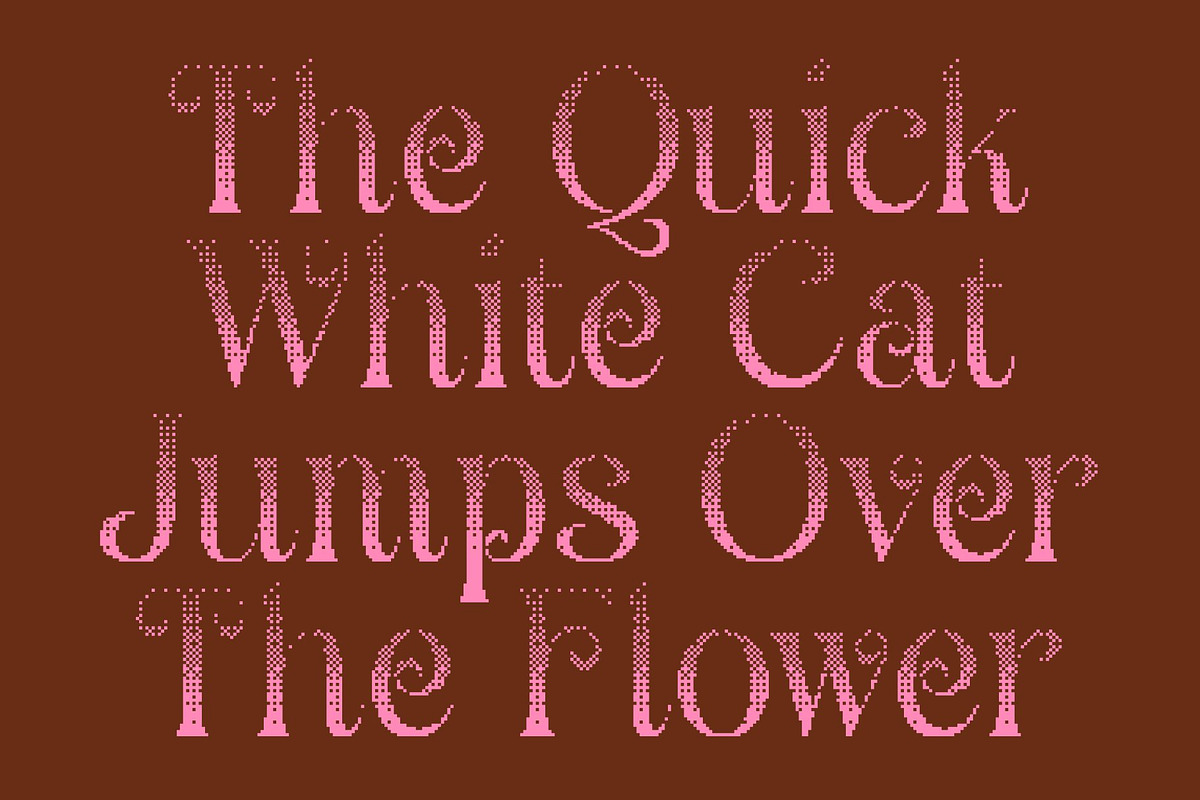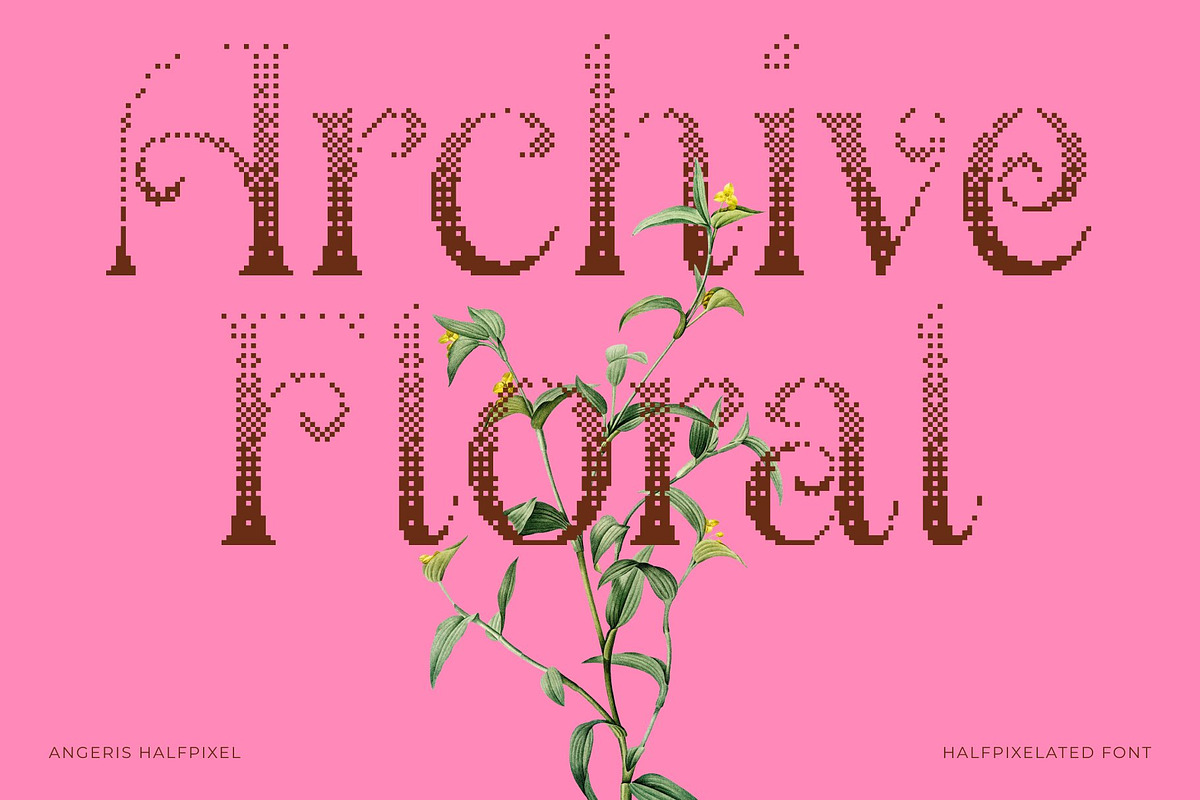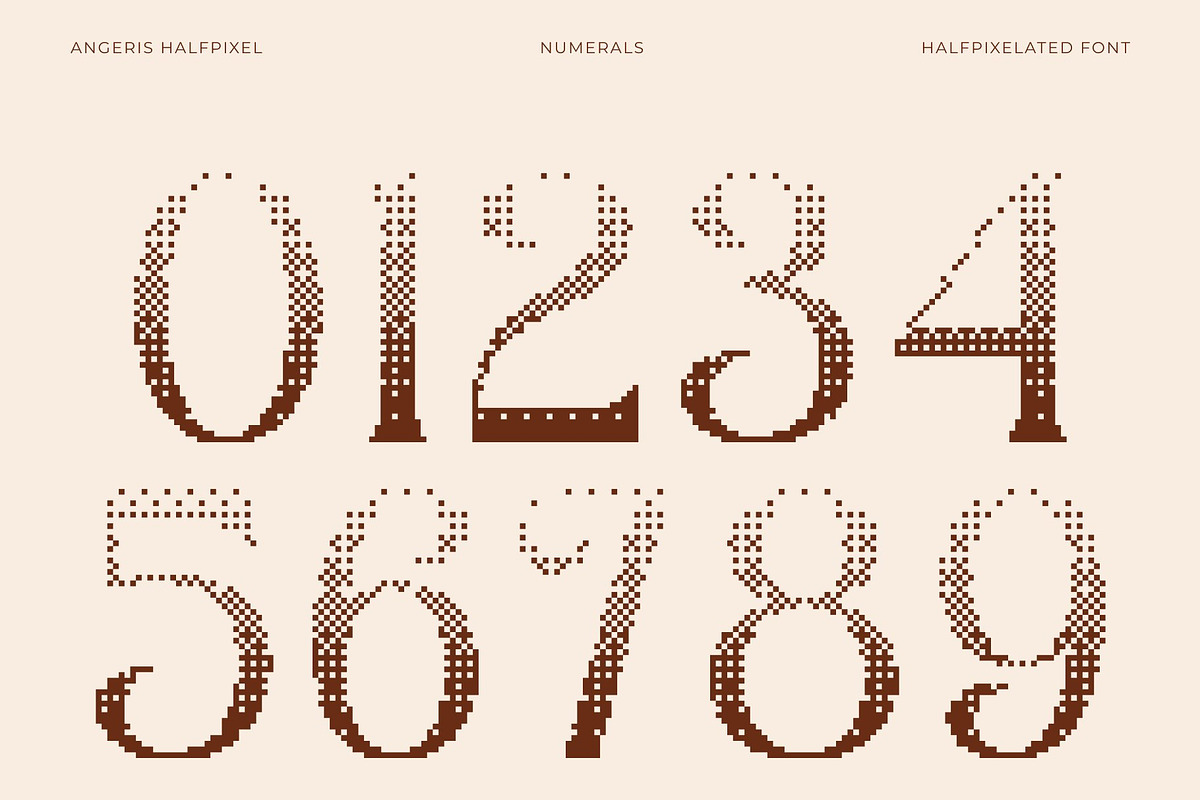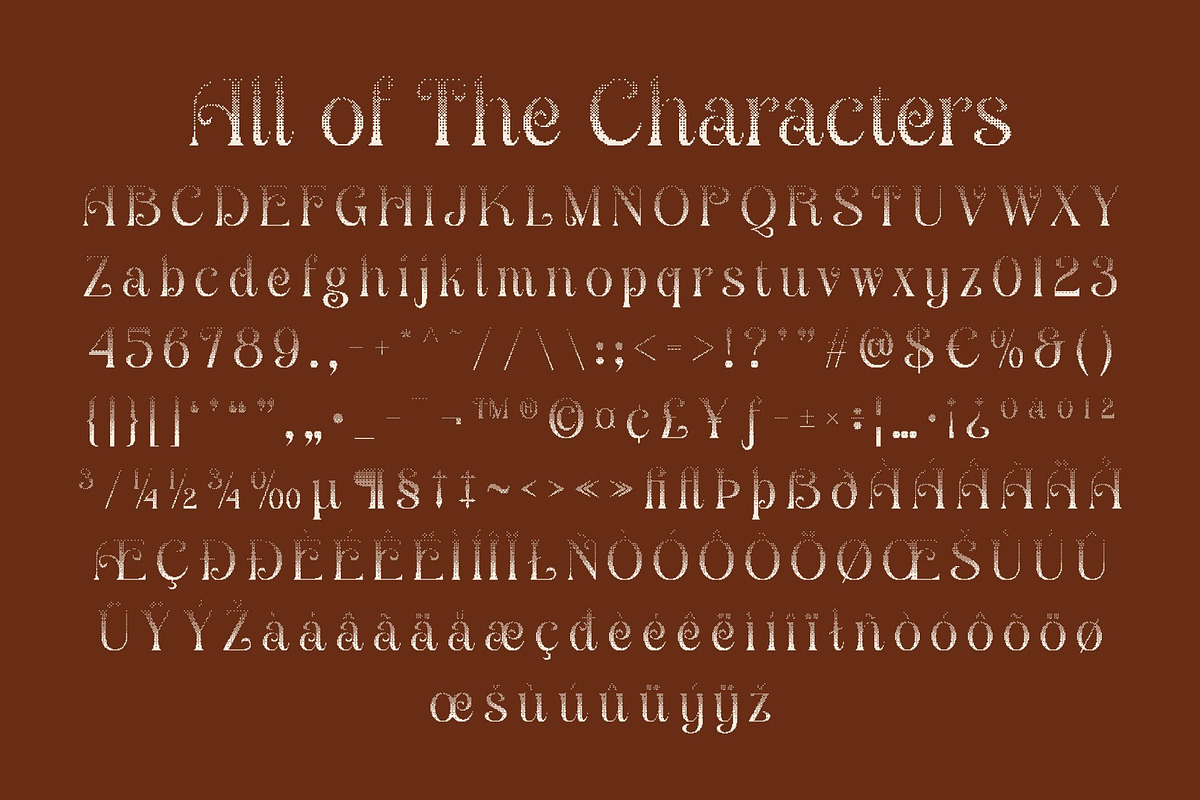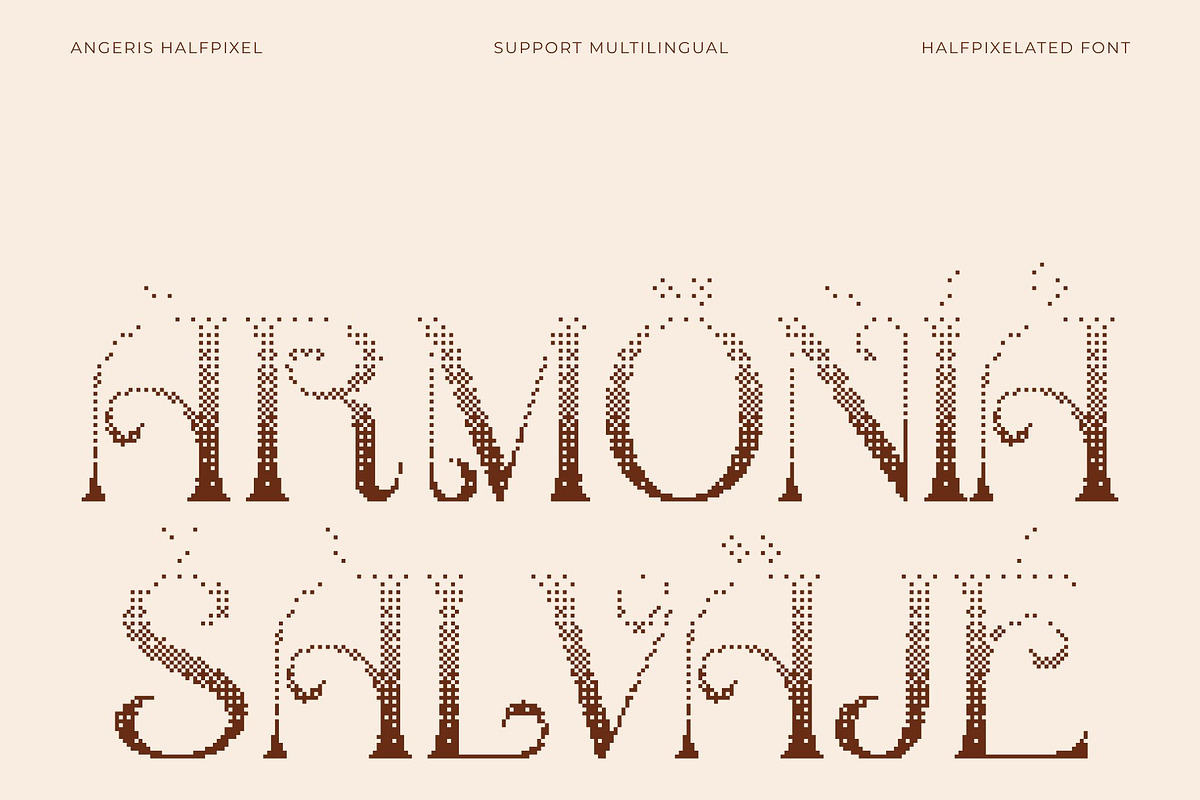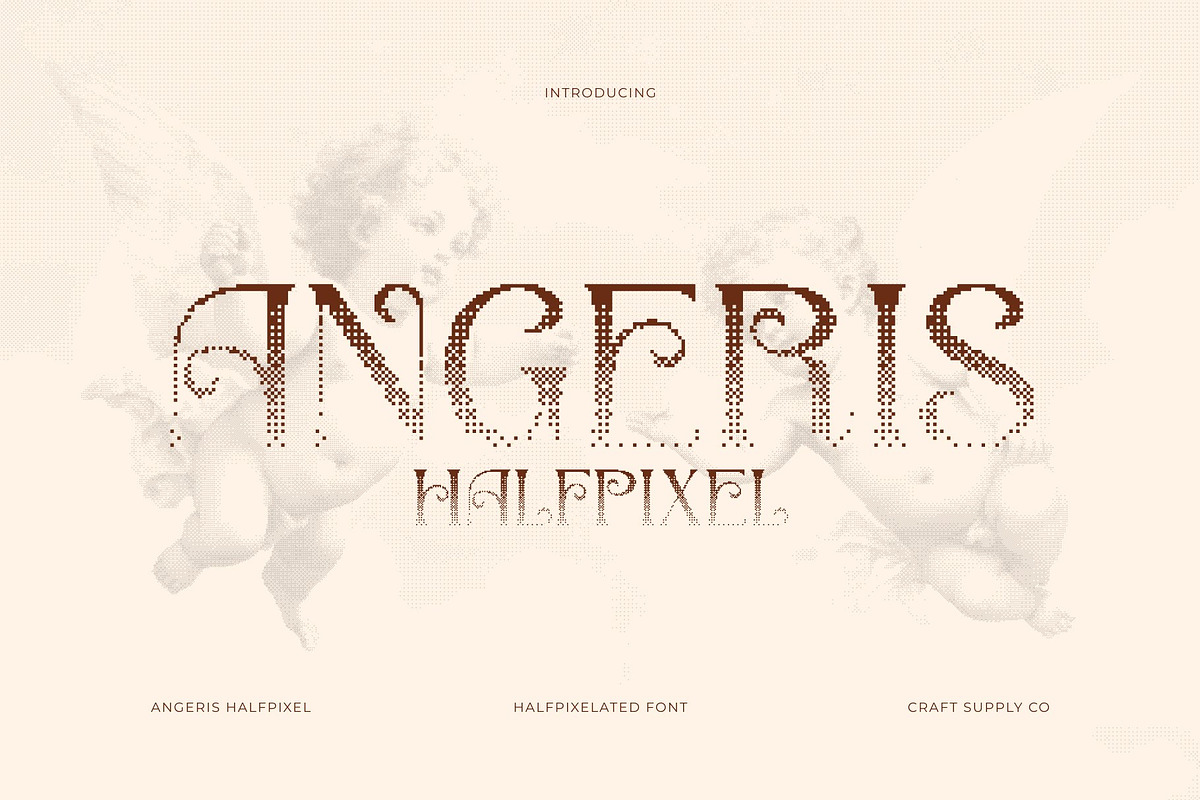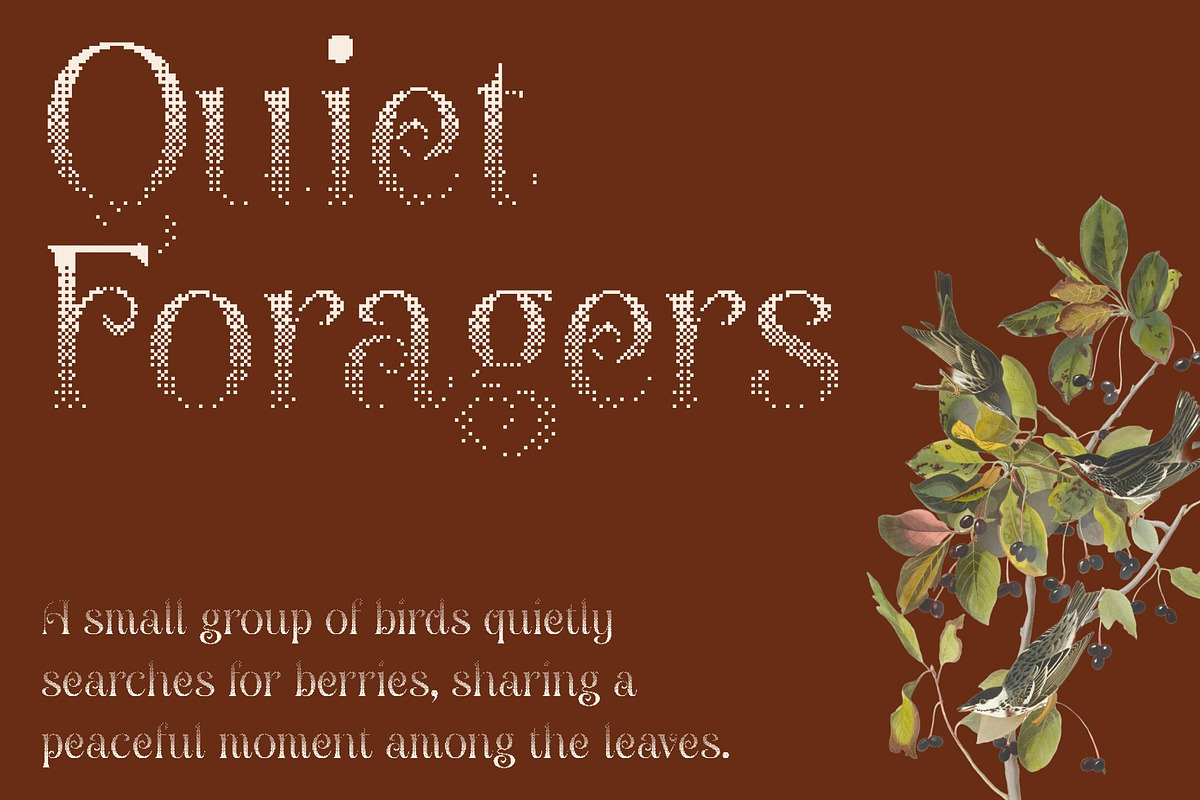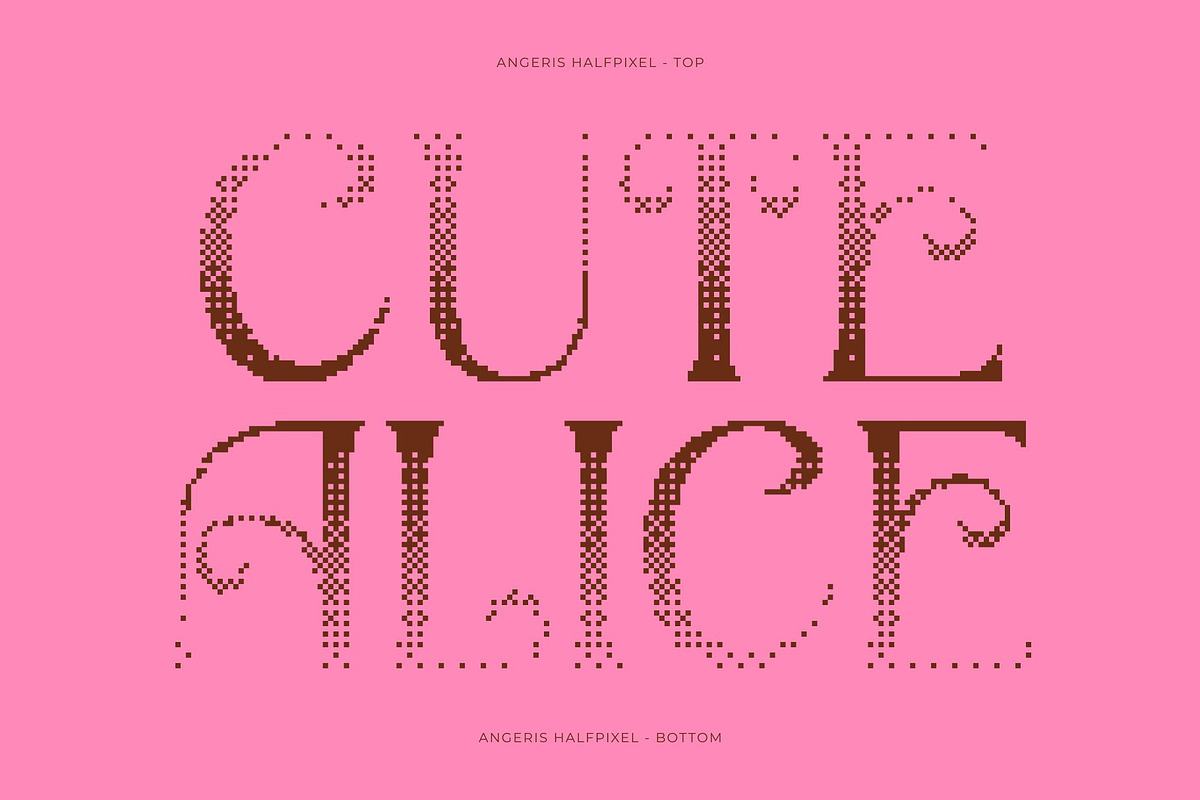
Angeris Halfpixel
Angeris Halfpixel – Retro Art Nouveau Serif
A Nod to Retro Elegance This is a refined serif typeface inspired by the iconic beauty of the Art Nouveau movement. Blending vintage charm with a modern sensibility, the font captures the nostalgic spirit of early 20th-century typography while maintaining a clean and contemporary presence.
Serif Design with Vintage Character The elegant serif structure brings timeless sophistication and excellent readability. Carefully crafted details and balanced proportions give the font a polished, classic feel that works beautifully across both display and text settings.
Art Nouveau Flow and Decorative Grace Inspired by the flowing forms of Art Nouveau, this font features graceful curves, organic shapes, and subtle ornamental touches. These refined details add warmth and artistic personality, creating a harmonious balance between decoration and usability.
Halfpixel Texture for Smooth Digital Finish The halfpixel treatment introduces a soft digital refinement that gently smooths the edges of each letter. This subtle anti-aliasing effect preserves a retro digital aesthetic while enhancing clarity and versatility for modern screens and print.
Angeris Halfpixel Top
Angeris Halfpixel Bottom